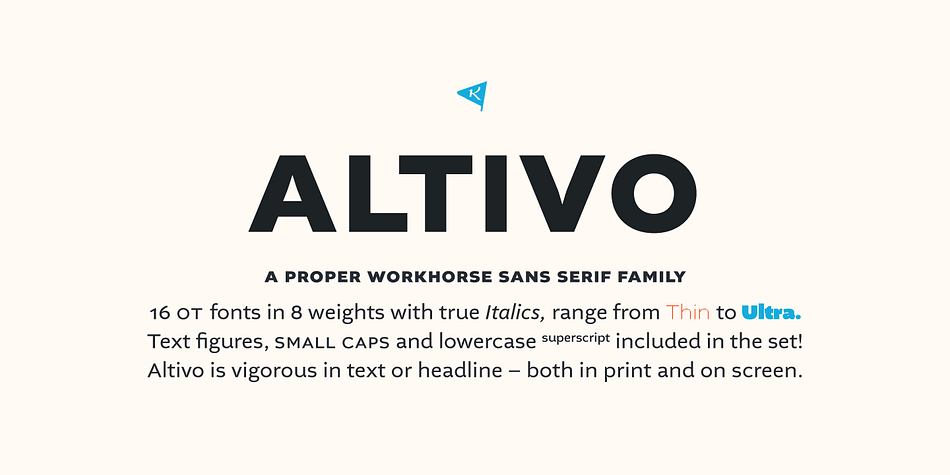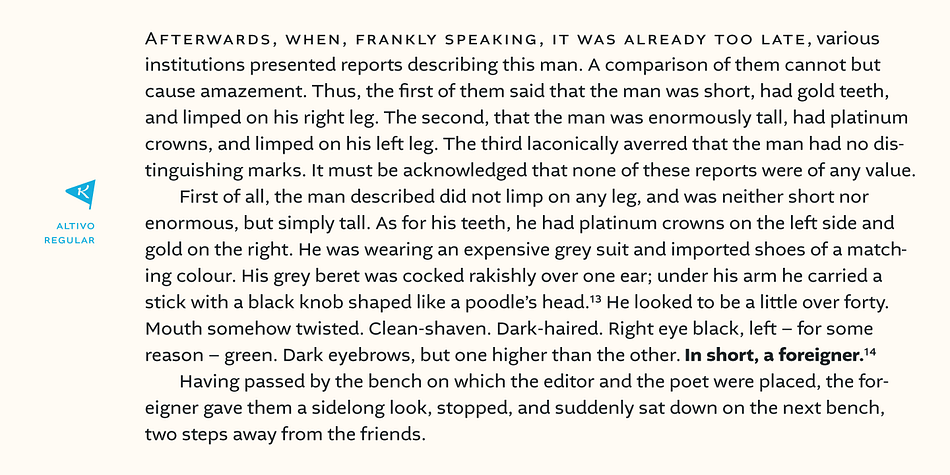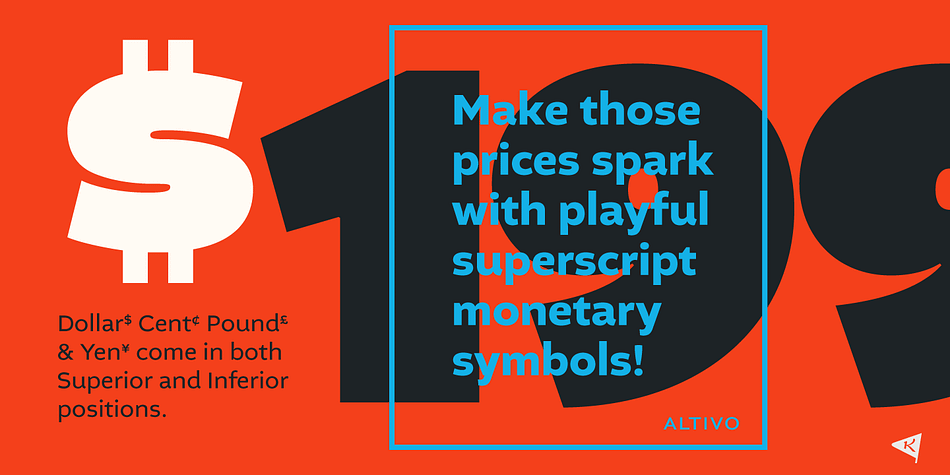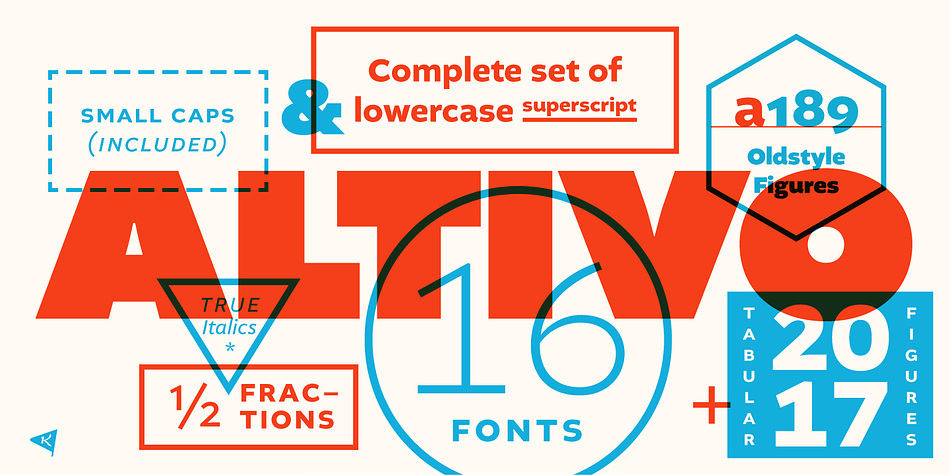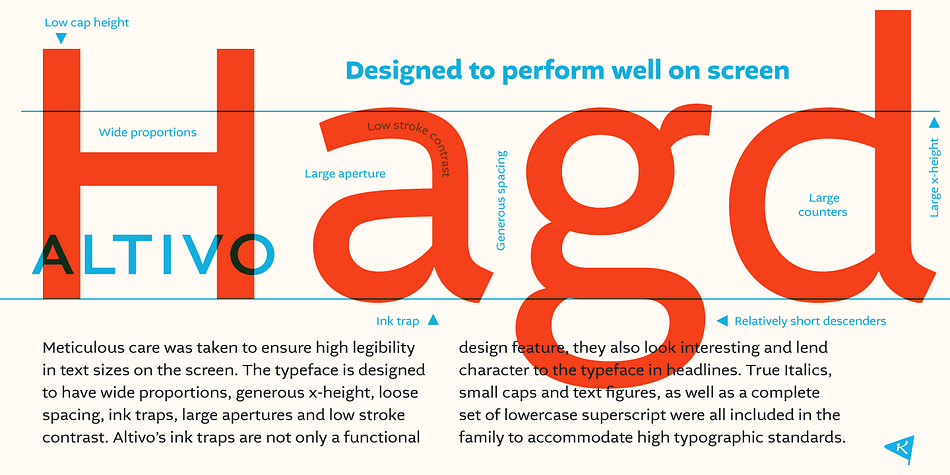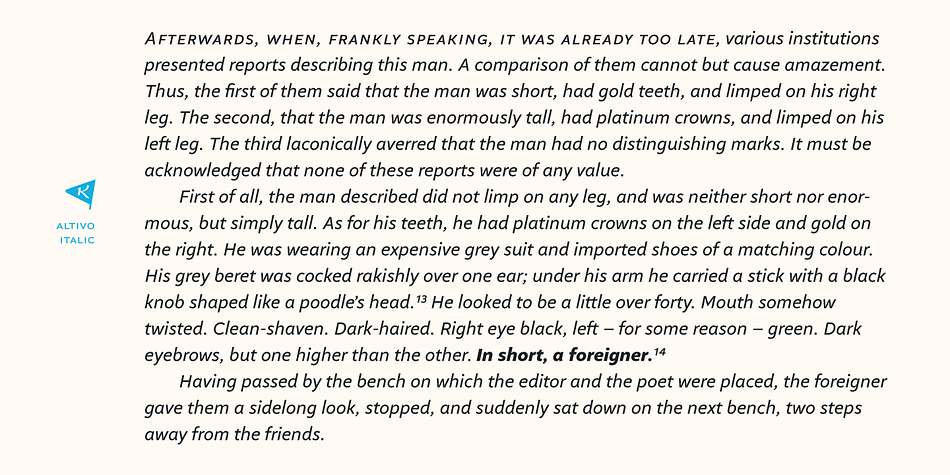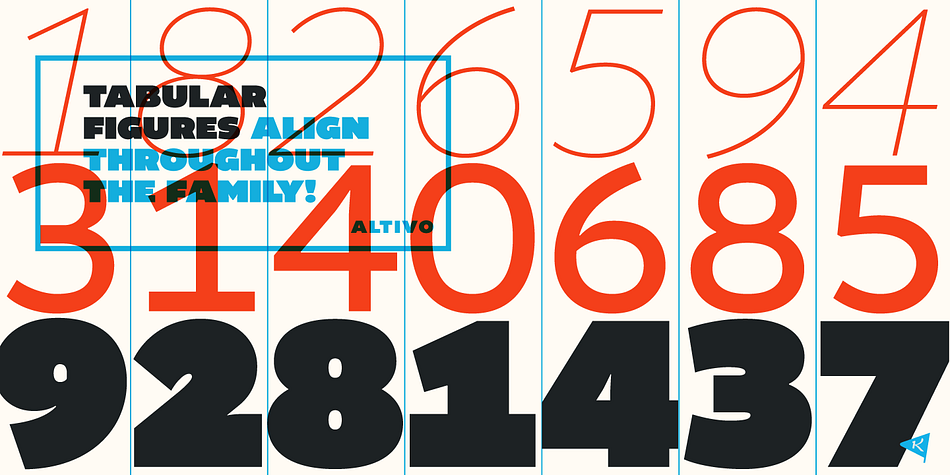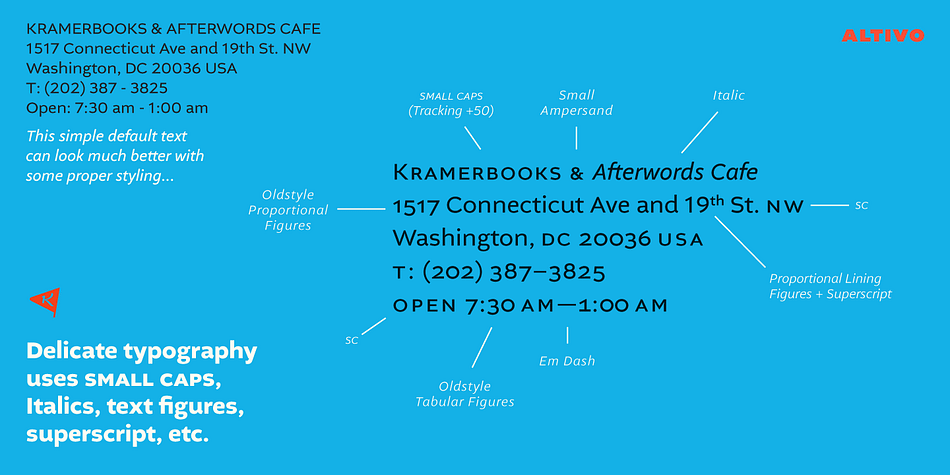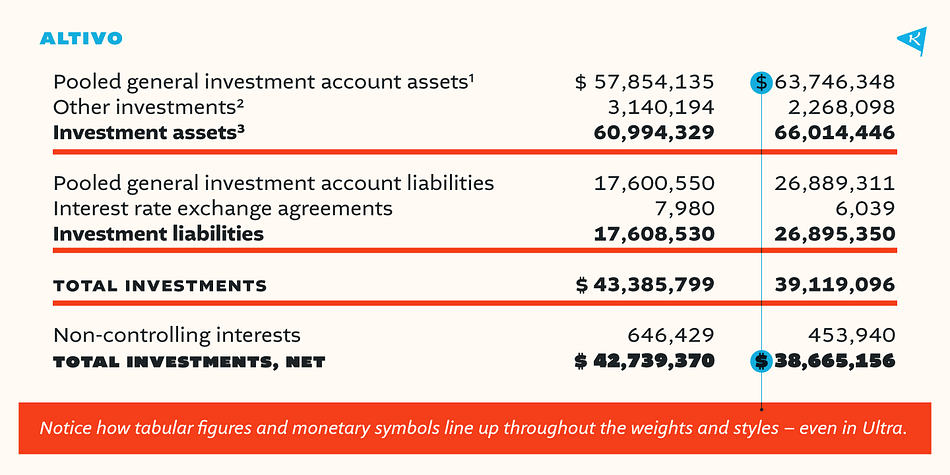
Altivo is a sans serif font family. This typeface has sixteen styles and was published by Kostic Type Foundry.
Altivo is a proper workhorse sans serif. Sixteen OpenType fonts in eight weights (with true Italics) range from Thin to Ultra. Meticulous care was taken to ensure high legibility in text sizes on the screen. The typeface is designed to have wide proportions, generous x-height, loose spacing, ink traps, large apertures and low stroke contrast. Altivo’s ink traps are not only a functional design feature, they also look interesting and lend character to the typeface in headlines. True Italics, small caps and multiple sets of figures, as well as a complete set of lowercase superscript were all included in the family to accommodate high typographic standards. If you need to pair it with a serif font, you can’t go wrong with Chiavettieri, since both typefaces were made with the same basic proportions, and their tabular figures are the same width.nik